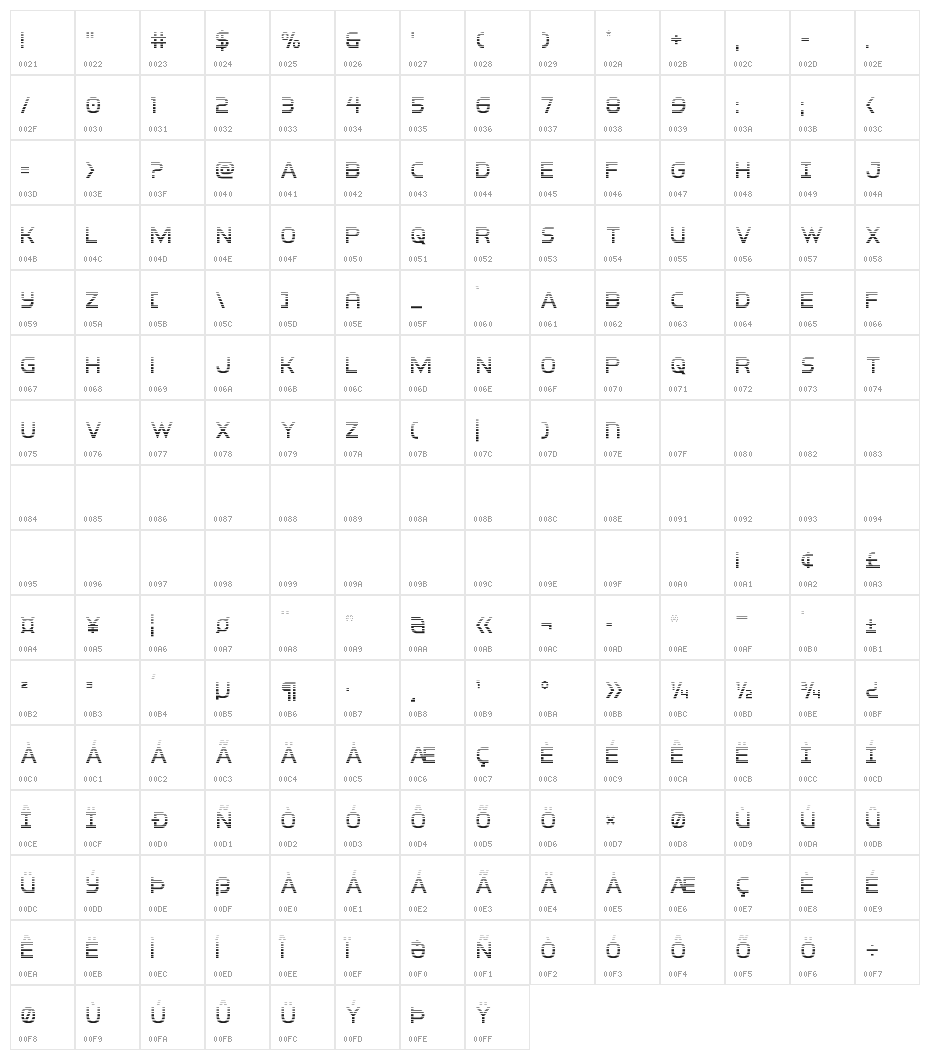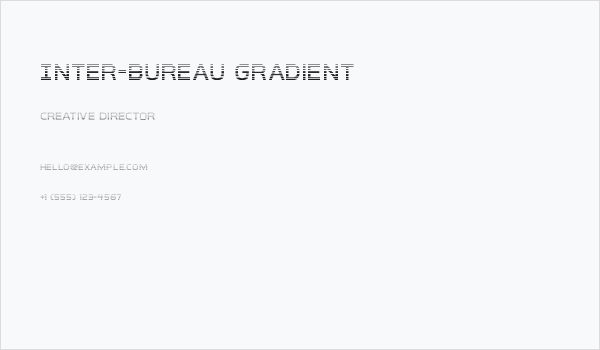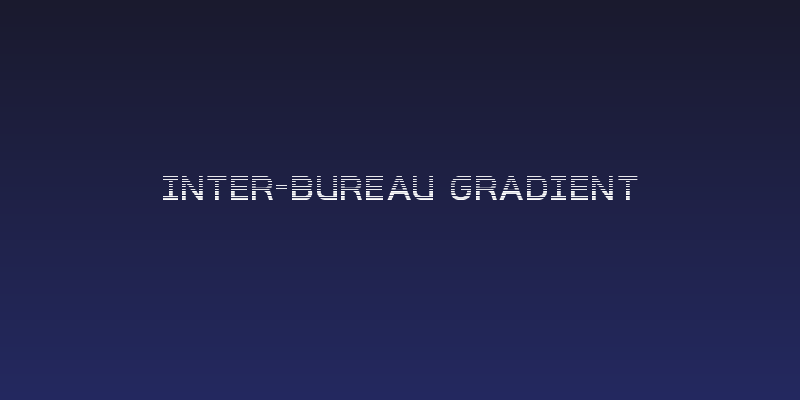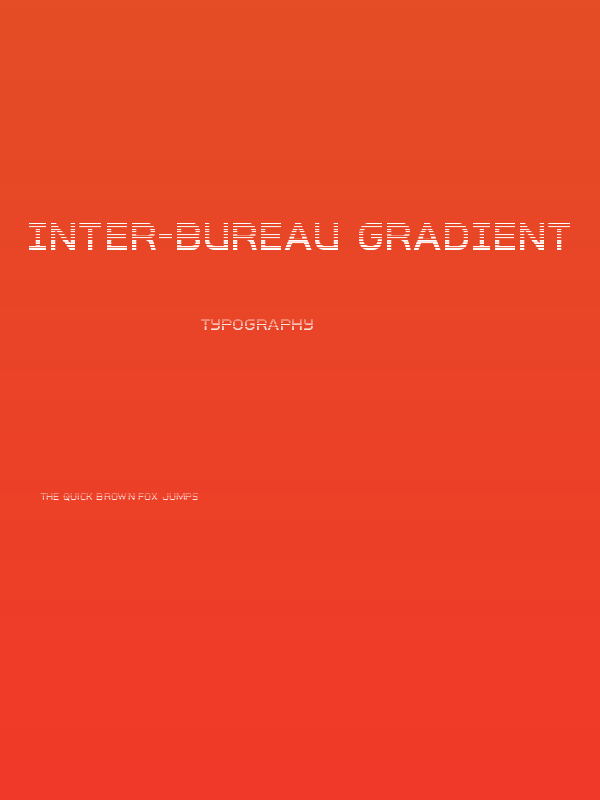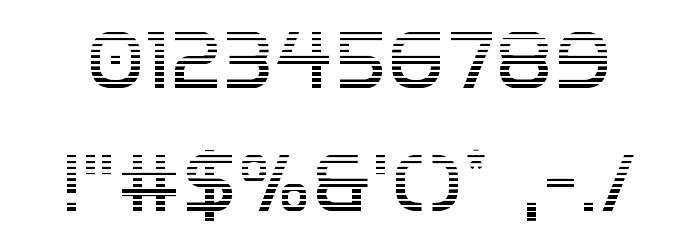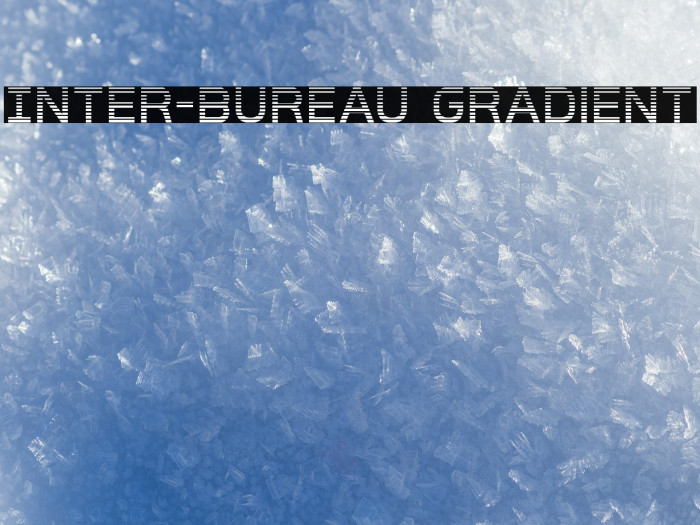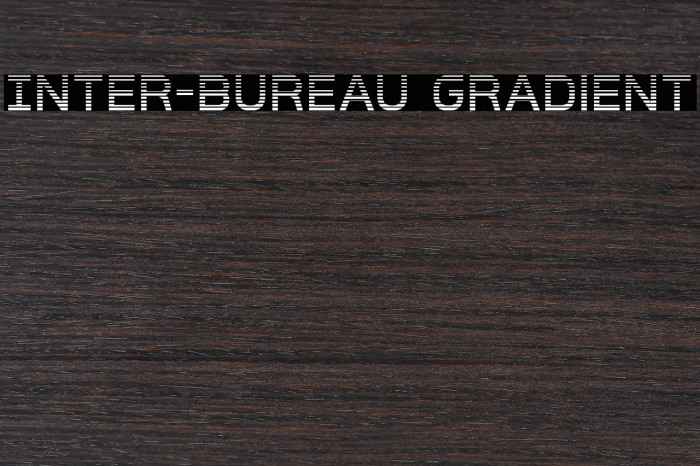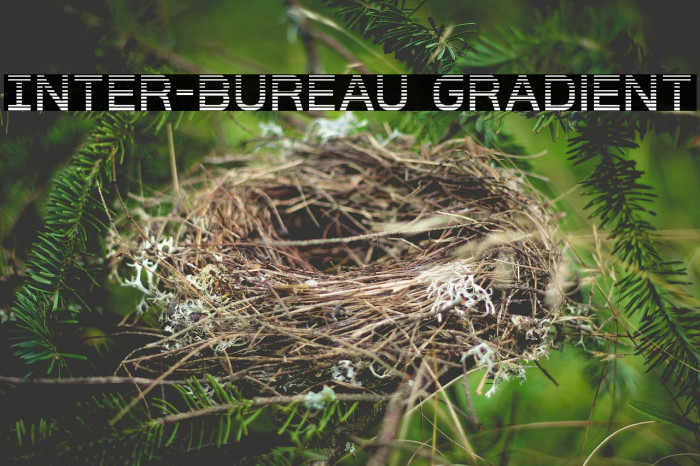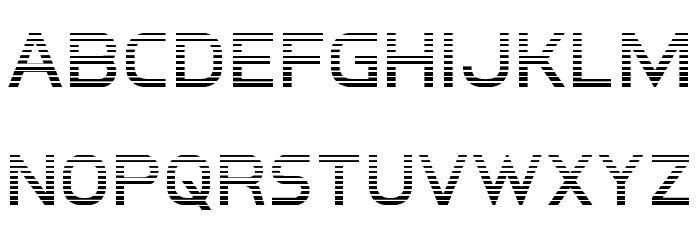
Inter-Bureau Gradient Font
Inter-Bureau Gradient Description
This font features a unique design with horizontal lines creating a gradient effect across each character. The uppercase and lowercase letters, as well as numbers and special characters, maintain a consistent style that blends modern aesthetics with a touch of digital flair. The lines vary in thickness, contributing to a dynamic visual texture that stands out in any design. This font is particularly eye-catching and can be used to draw attention to specific elements in a project. The overall appearance is clean yet distinctive, making it suitable for a variety of creative applications.